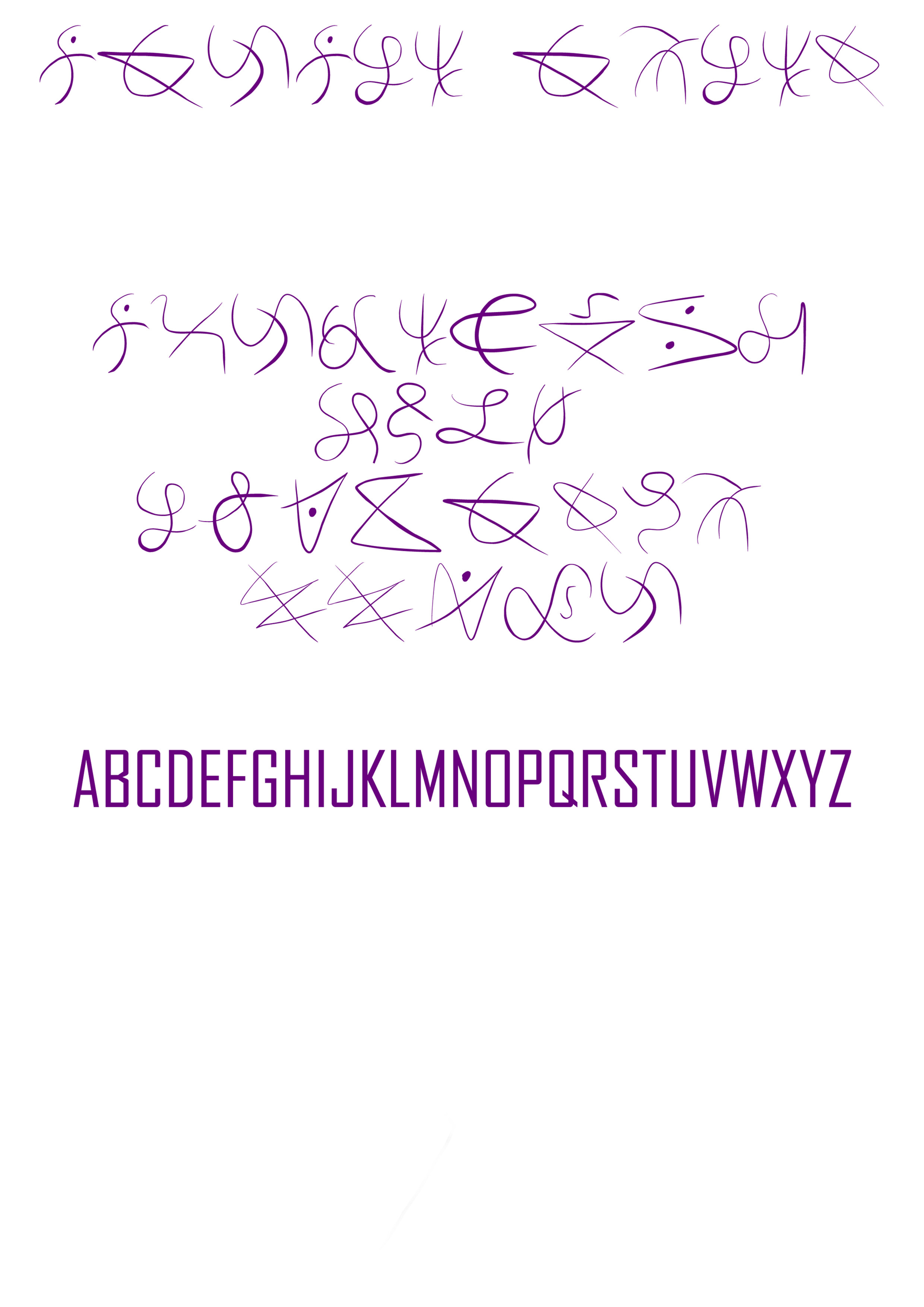
btw FYI it needs to be pretty big sized before its clearly visible <<
Even though I was looking for the actual symbols, this one is not bad still!
this is a very nice font! perfect for making arcane glyph art ^.^
So...what does it say? LOLZ!
Arcane Font
ABCDEFGHIJKLMNOPQRSTUVWXYZ
It looks like a small message. LOLZ!
it is small X3 and meant to be